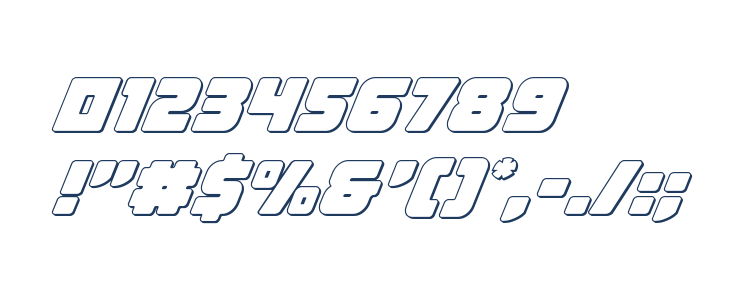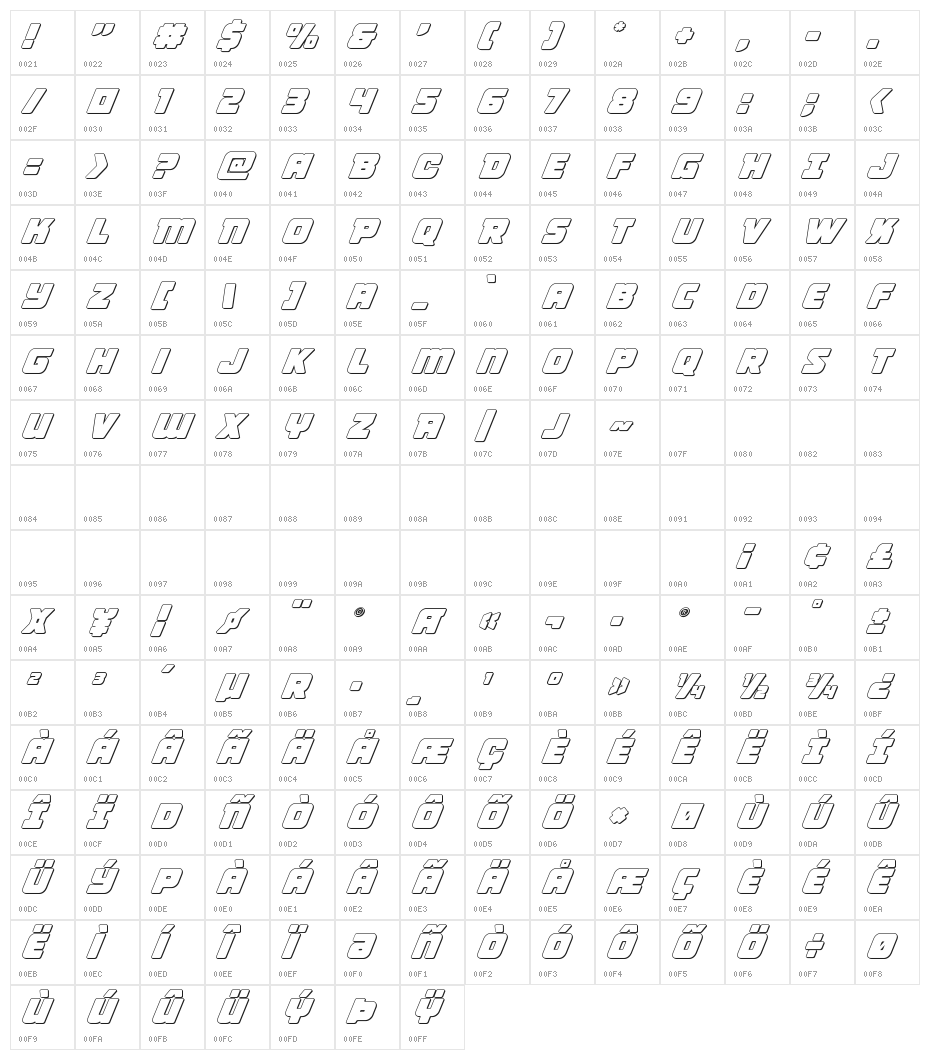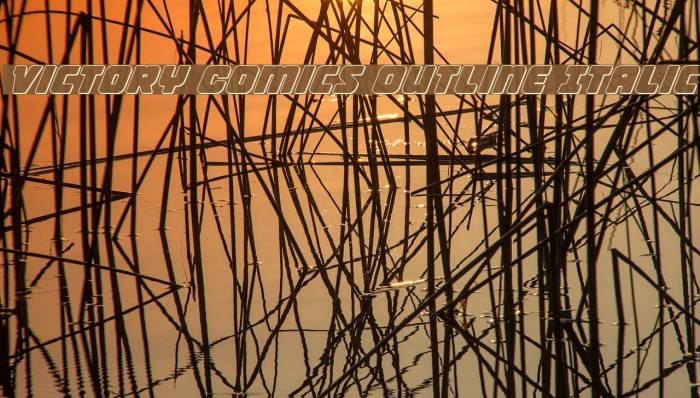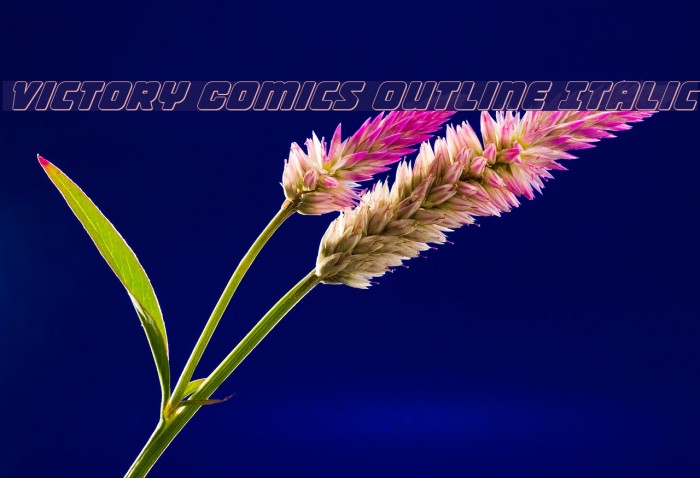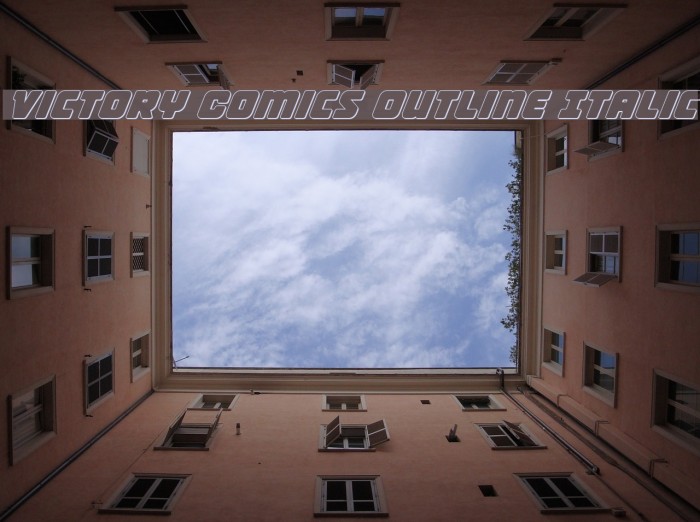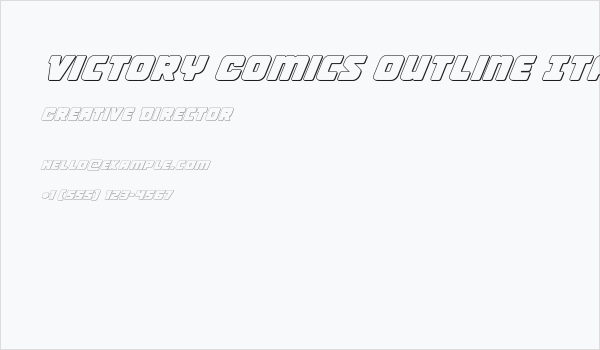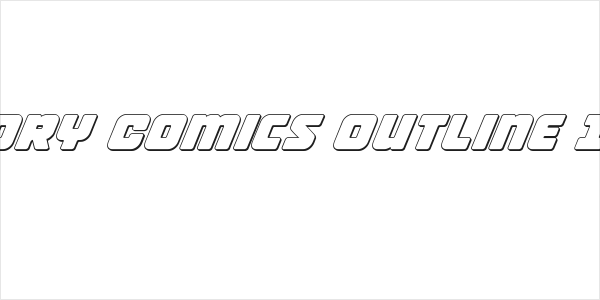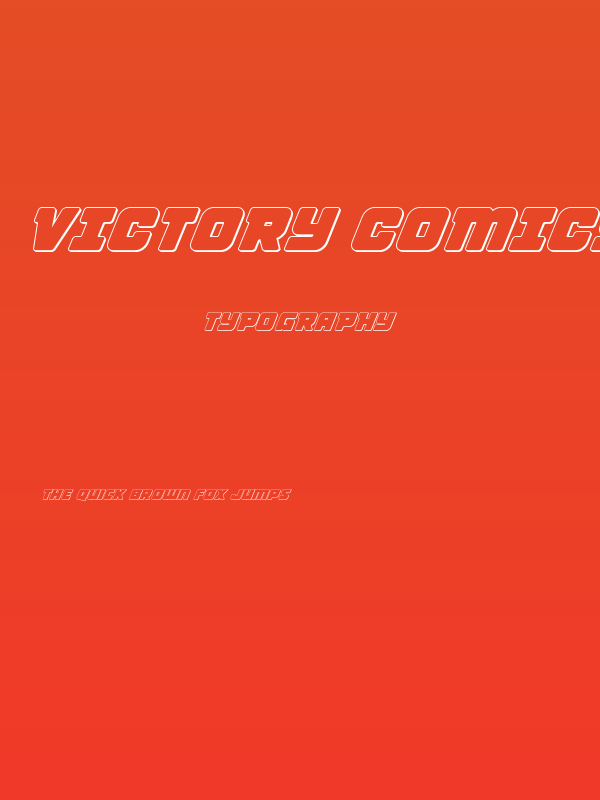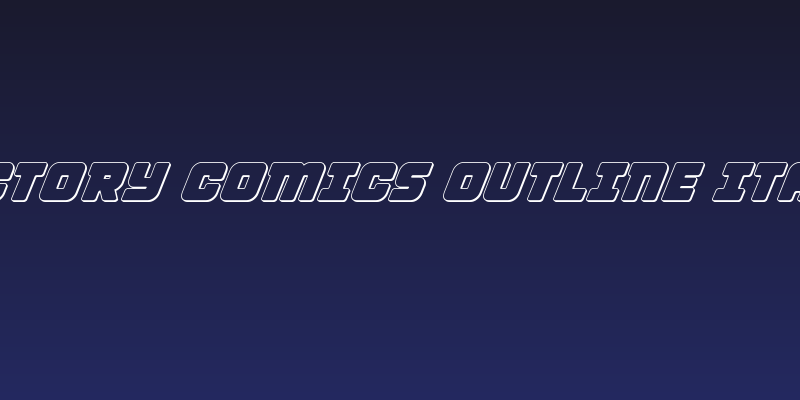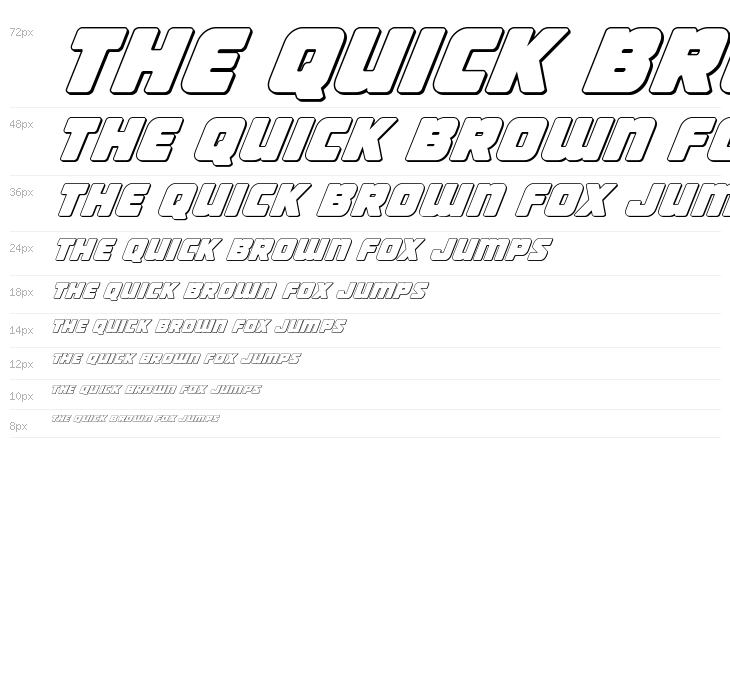
Victory Comics Outline Italic Font
Victory Comics Outline Italic Description
This font features a bold, outlined style with a playful and dynamic appearance. The characters are uppercase and lowercase with a consistent outline that gives them a three-dimensional effect. The italic slant adds a sense of motion and energy, making it ideal for attention-grabbing designs. The rounded edges soften the overall look, while the uniform thickness of the outlines maintains clarity and readability. The numbers and special characters follow the same stylistic approach, ensuring a cohesive look across all elements.